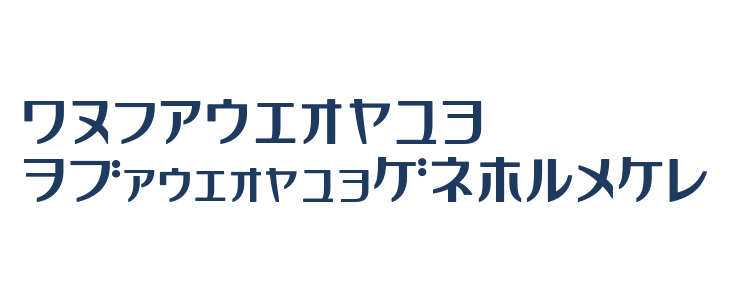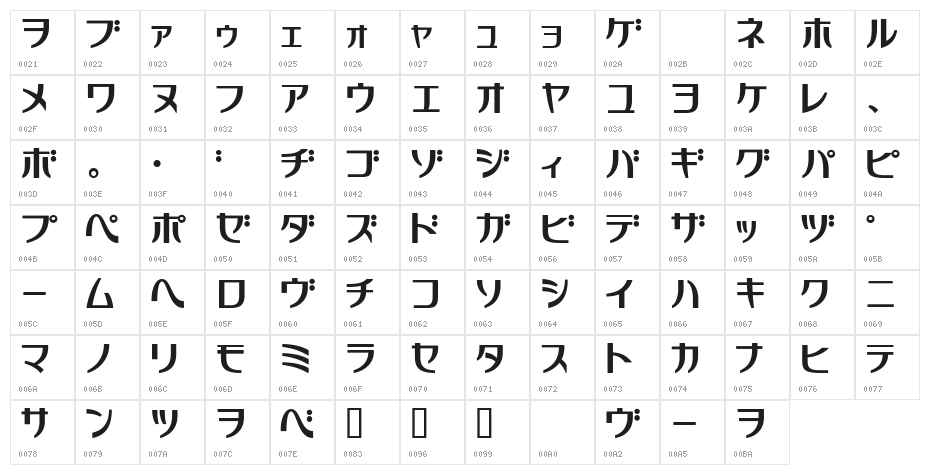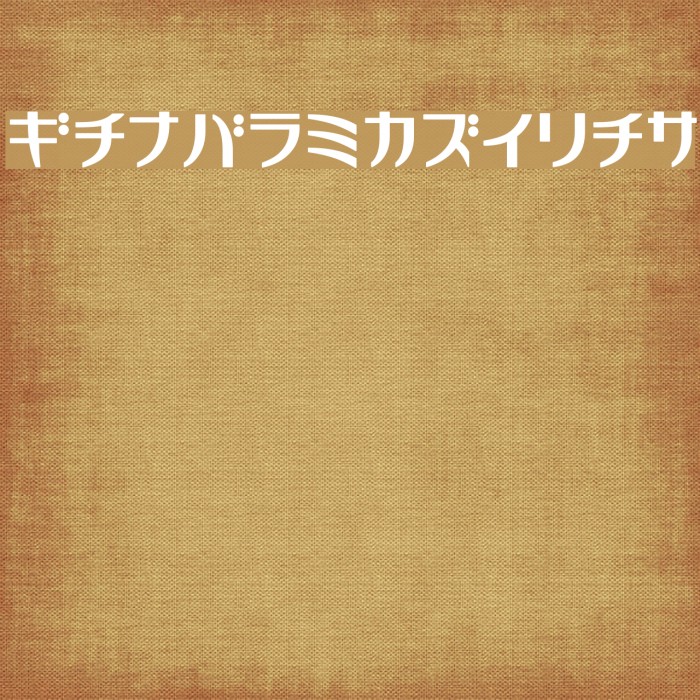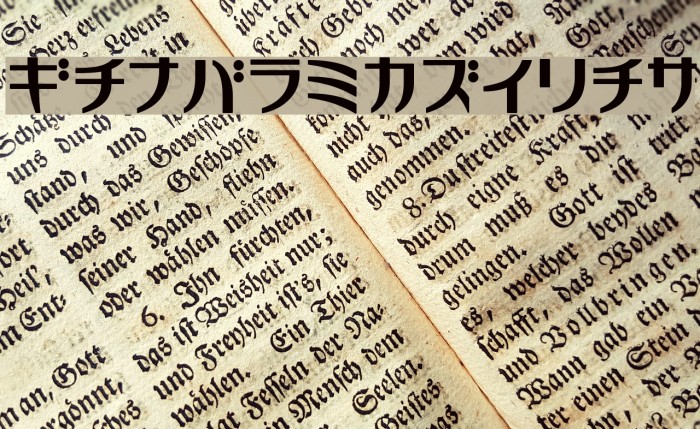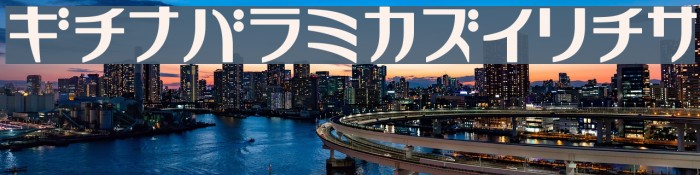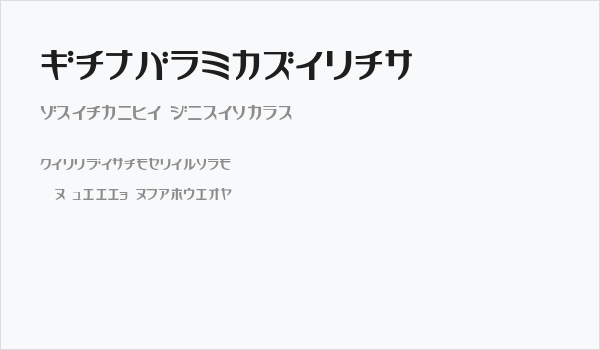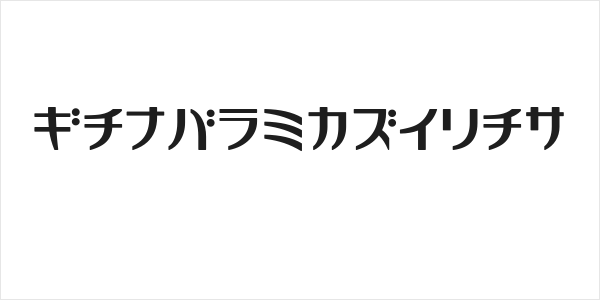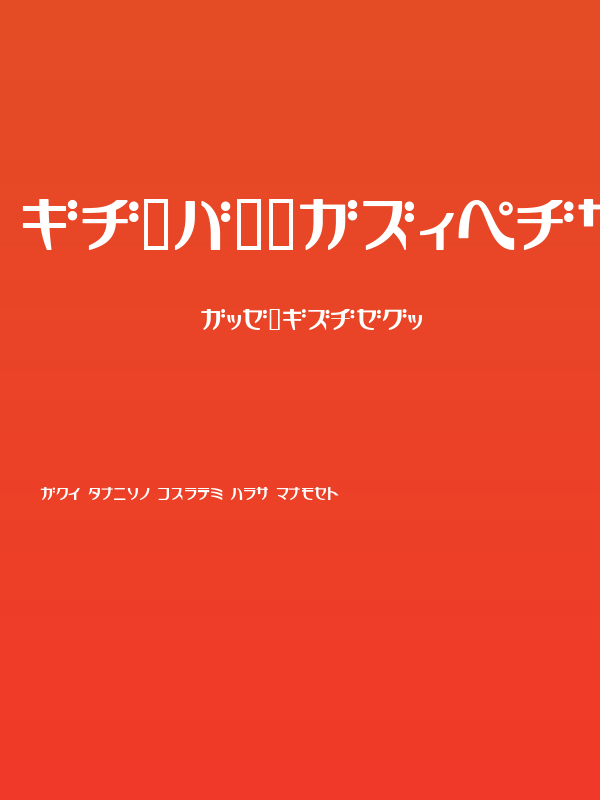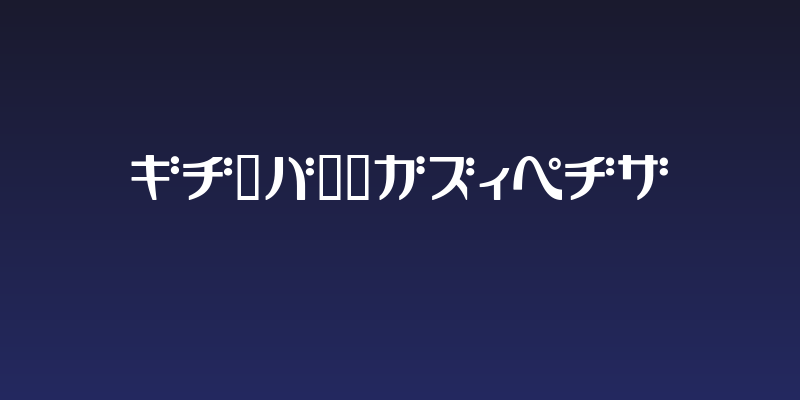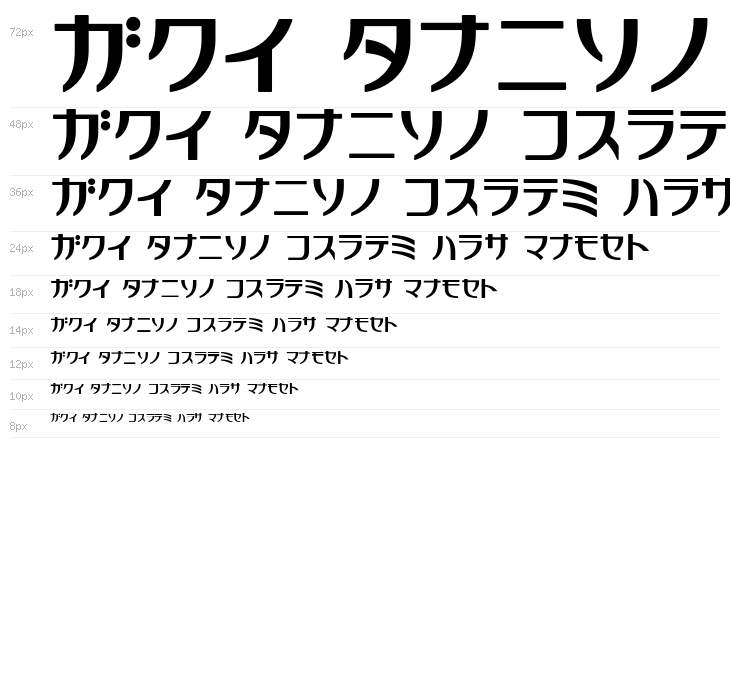
GauFontRelax Font
GauFontRelax Description
This font features a bold and modern design with clean, geometric shapes. The characters are well-defined with a consistent stroke width, giving it a uniform appearance. The style is distinctly sans-serif, with a focus on clarity and readability. The characters are slightly condensed, which allows for efficient use of space without sacrificing legibility. This font is suitable for a variety of applications, from digital interfaces to print media, due to its versatile and contemporary look.